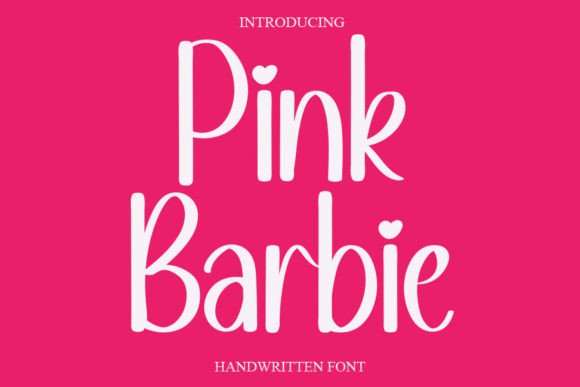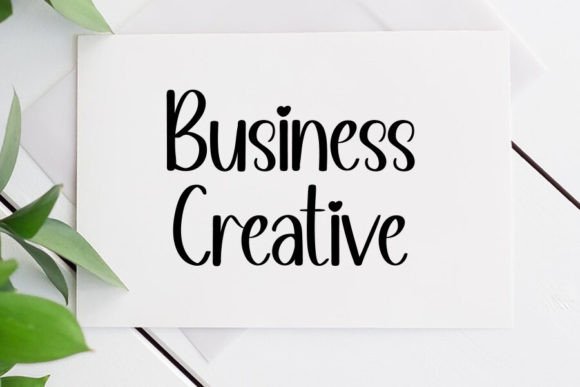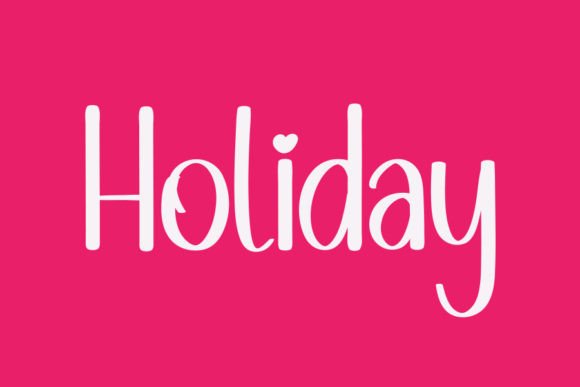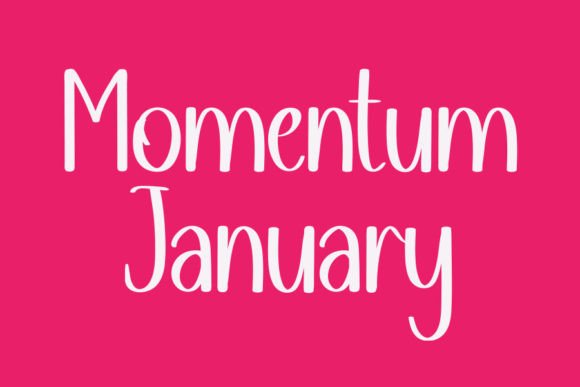
Pink Barbie Font
About the Pink Barbie Font
Discover the charm of Pink Barbie Font. This font is a perfect blend of modern aesthetics and classic appeal. Pink Barbie is a trendy handwritten font with a contemporary atmosphere and impeccable form, inspired by timeless classic calligraphy. It will add elegance and class to any of your design projects.
Pink Barbie’s elegant, yet casual, style makes it ideal for headlines, short-form content, branding projects requiring a touch of whimsy, and packaging design for beauty or lifestyle products. It works exceptionally well in logo design and social media graphics where its hand-drawn charm is most effective. However, its less-than-optimal legibility makes it unsuitable for body text or lengthy passages.
Consider pairing Pink Barbie with a clean sans-serif like Montserrat for a modern contrast, or a classic serif such as Garamond for a more timeless feel. A geometric sans-serif would also provide a strong counterpoint, enhancing the handwritten character of Pink Barbie. Avoid pairing it with other script fonts, as this risks visual clutter.
The overall personality is sophisticated yet approachable, conveying a sense of modern femininity and playful charm, making it well-suited to brands aiming for a friendly and stylish image.
Pink Barbie Font Usage Examples
Pink Barbie Font Example